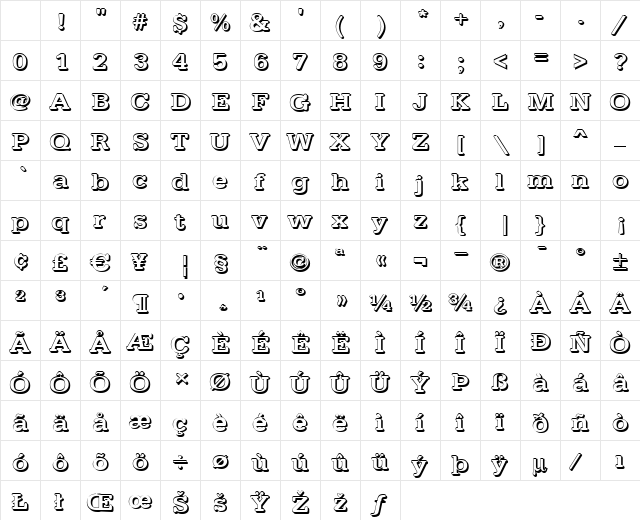
AstridBeckerShadowE-Medium is built around its visual character rather than neutral utility - its distinctive forms are designed to make an impression at display sizes.
Font Pairing: Pair with a clean neutral sans-serif for body copy to let AstridBeckerShadowE-Medium's character lead without overwhelming the composition.
Pro Tip: Use AstridBeckerShadowE-Medium exclusively at display sizes - it was designed to be seen, not read at length. Let a neutral companion handle body copy.